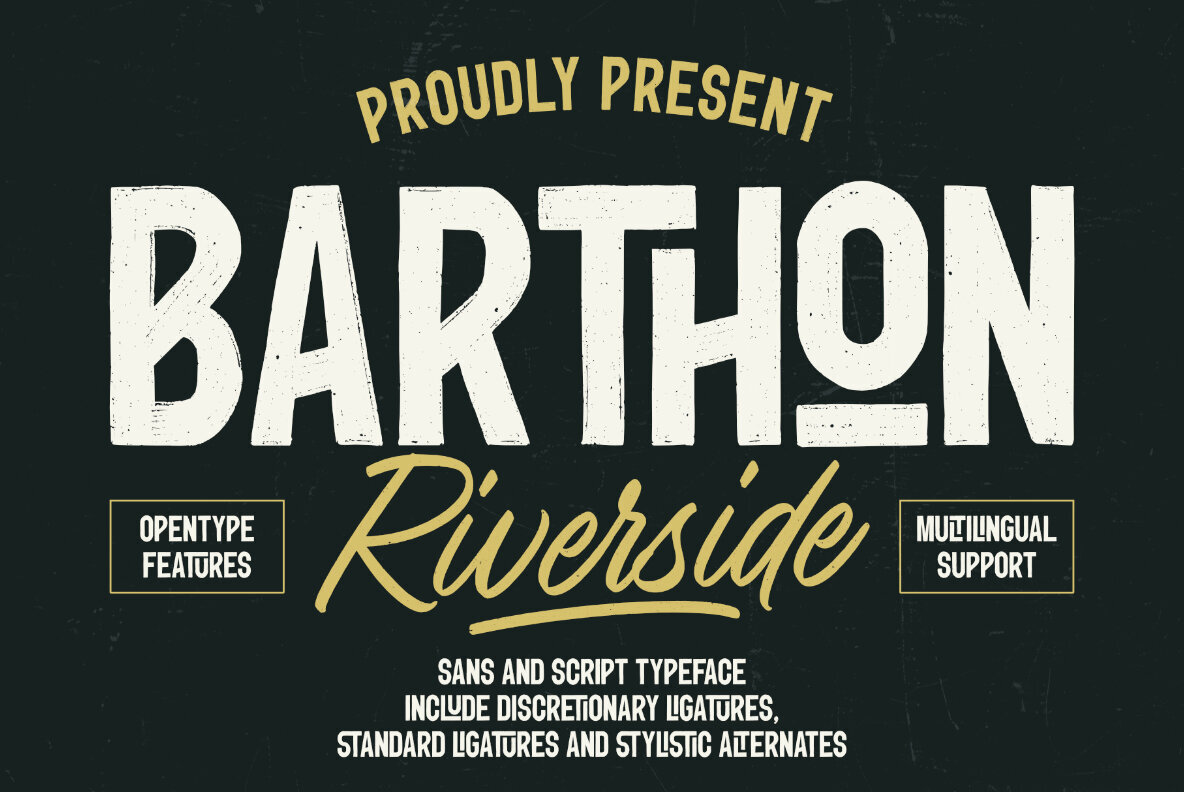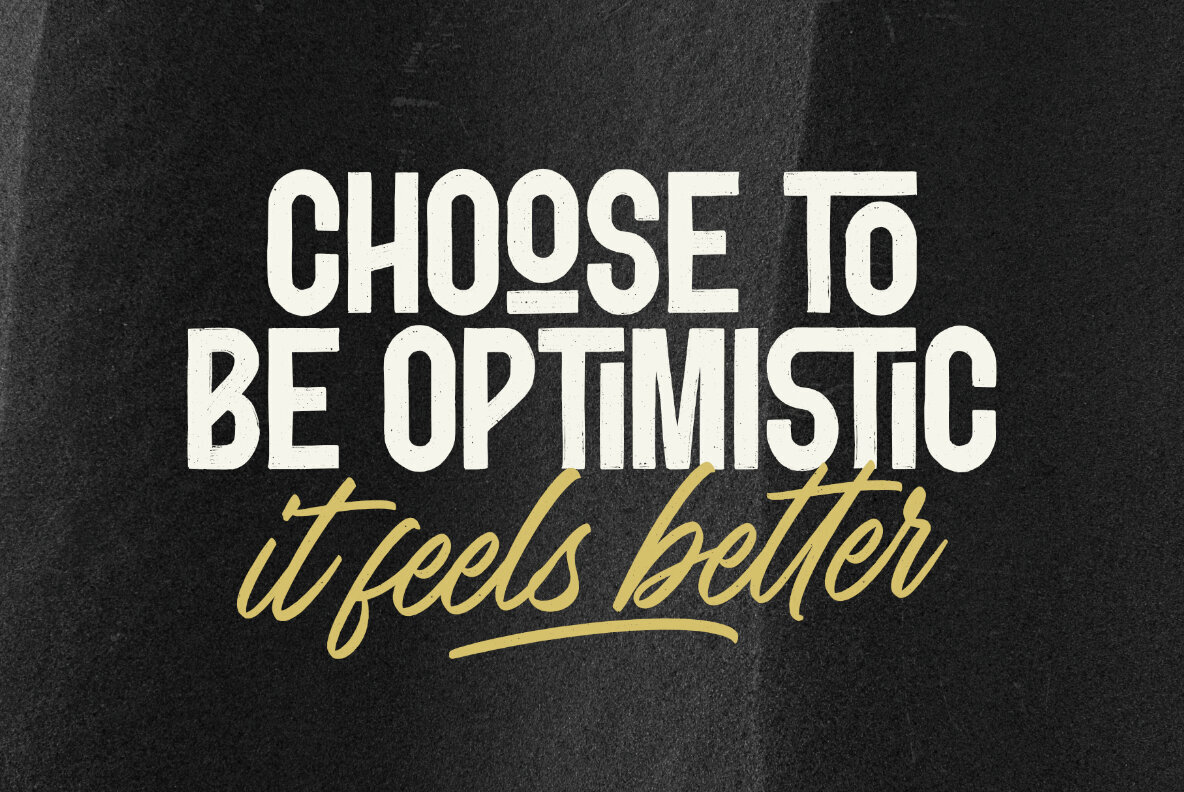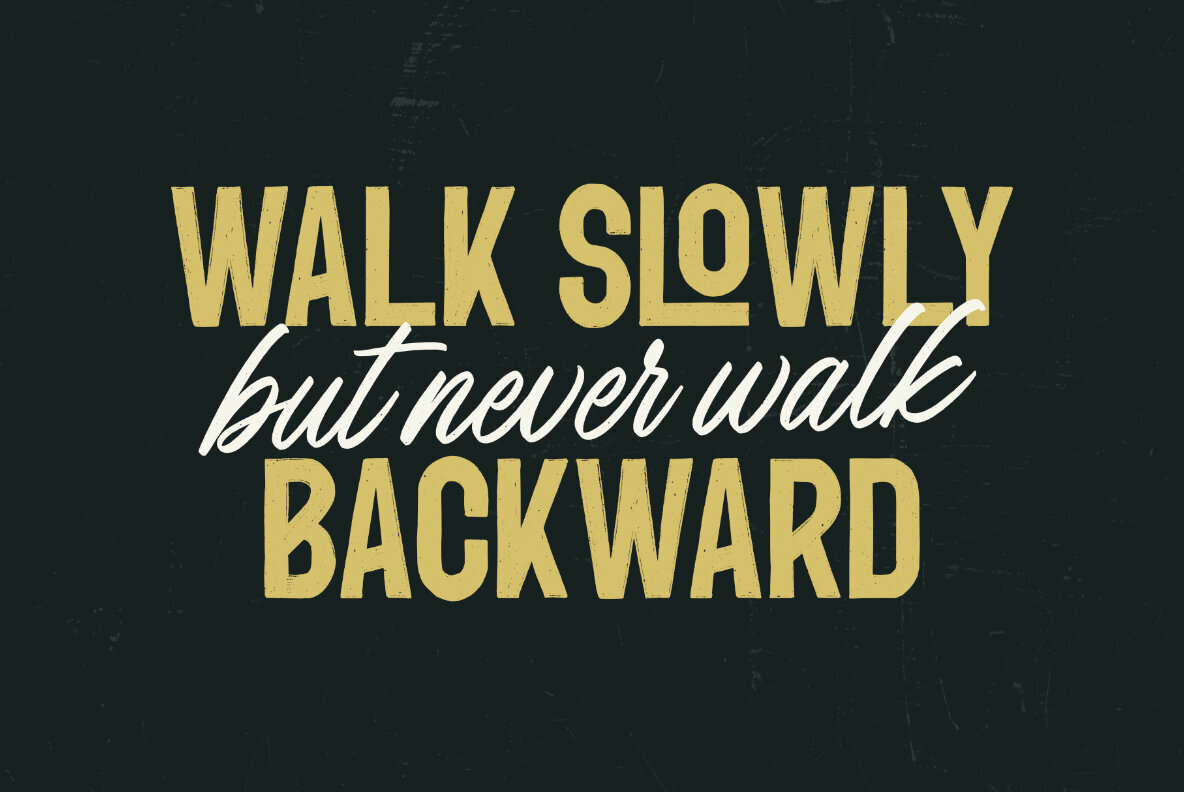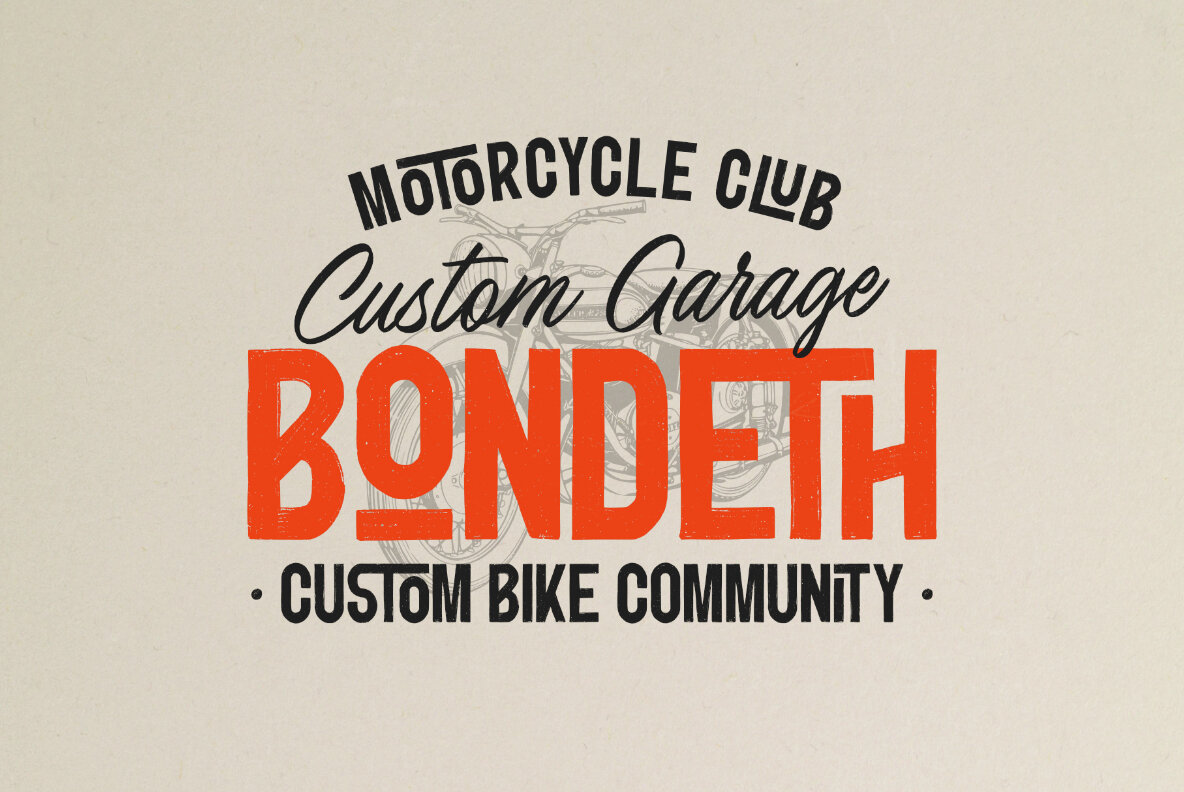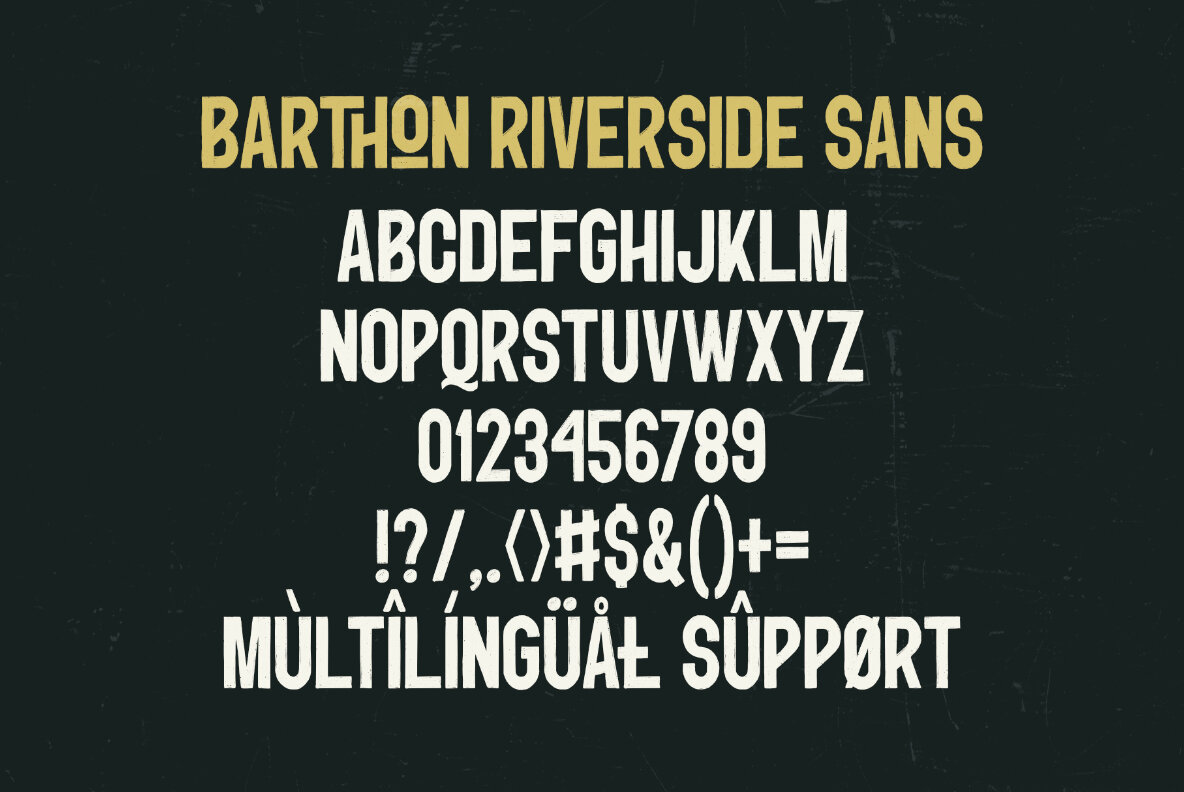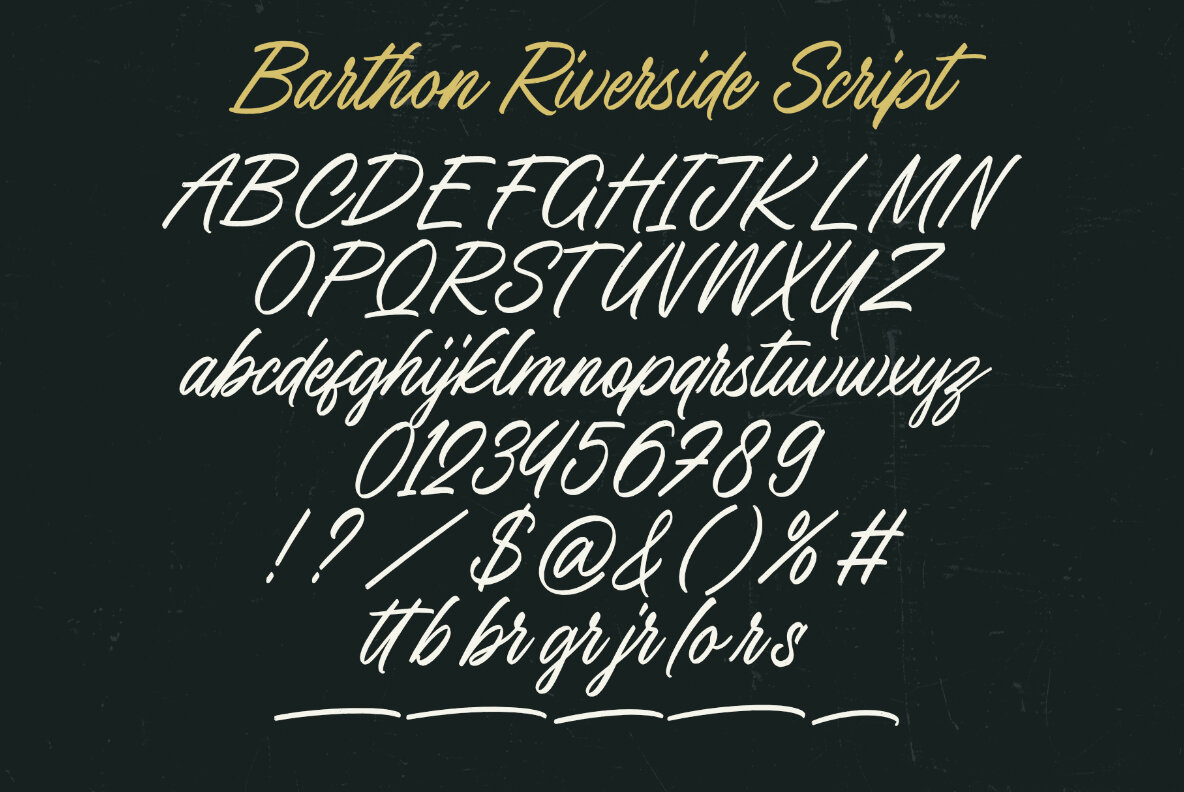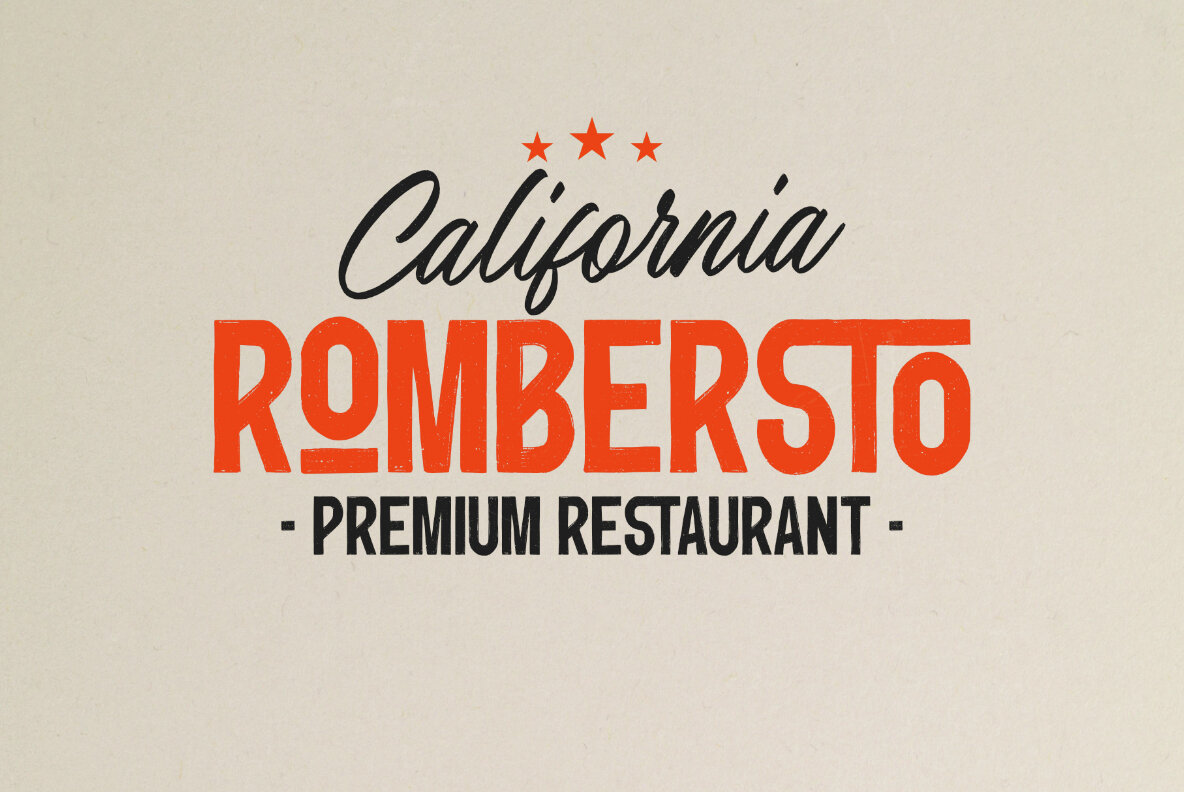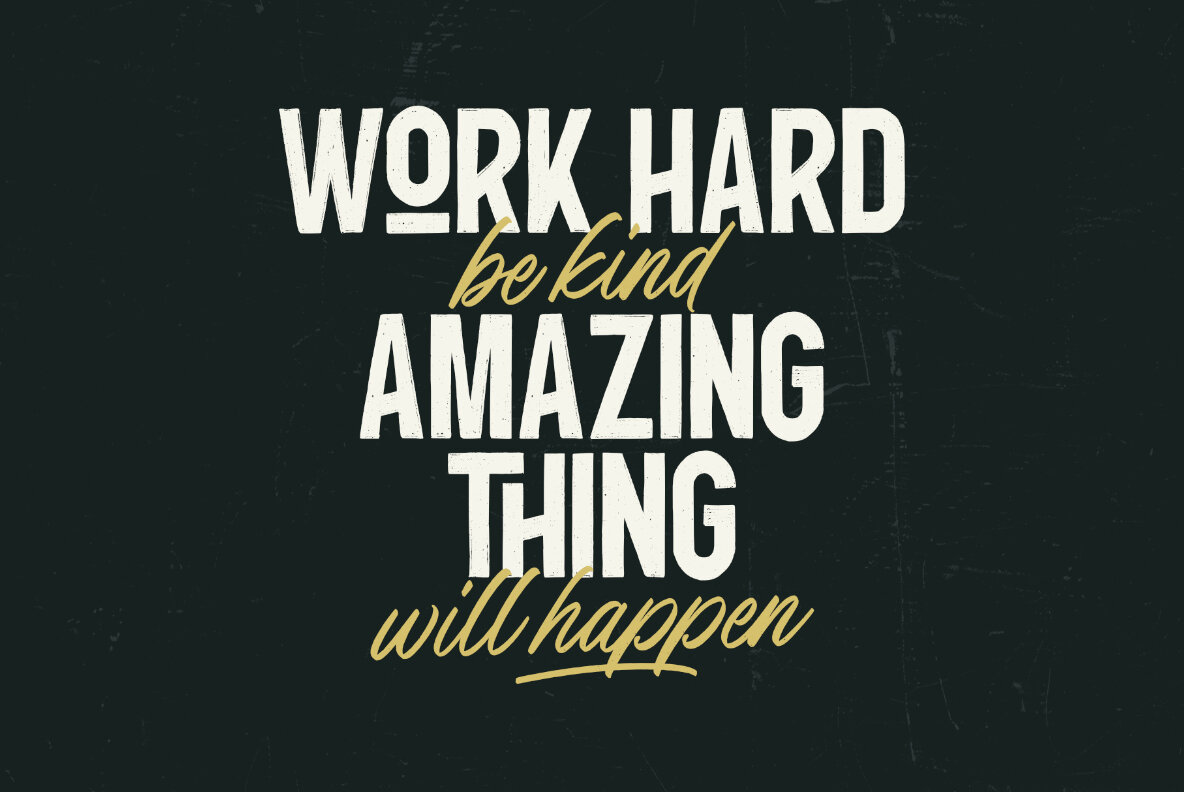
Barthon Riverside Font
Barthon Riverside is a stylish and versatile font duo featuring sans and flowing script typeface. This perfectly complementary pair combines modern and stylish , offering endless possibilities for creative projects. Whether used together or independently, Barthon Riverside strikes a perfect balance between bold sophistication and delicate charm.